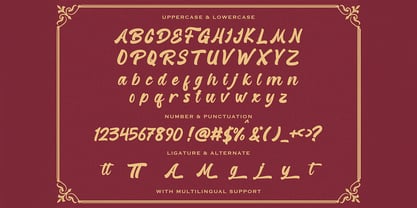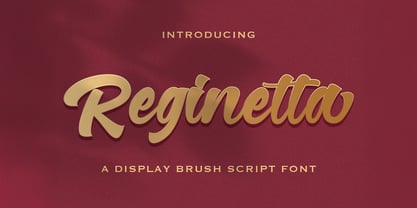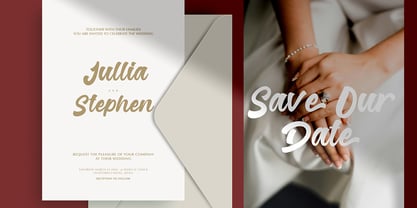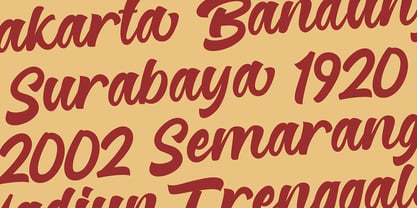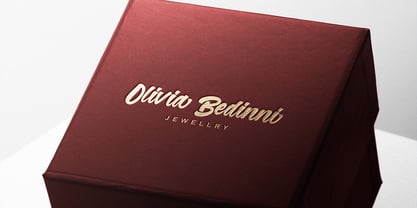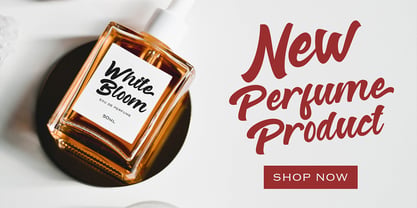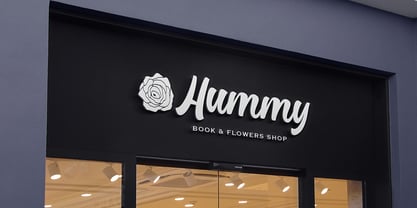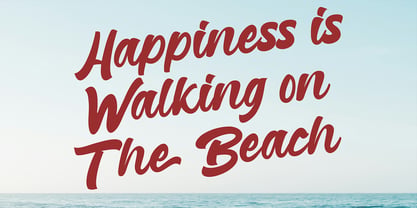
The Reginetta Font Family was designed by Virgiawan Listanto and published by Stringlabs Creative Studio. Reginetta contains 1 styles. More about this family
Introducing Reginetta - Bold Script Font Reginetta is a bold script font designed with smooth brush strokes and elegant flowing curves. Its strong handwritten style creates a beautiful balance between boldness and sophistication, making it perfect for eye-catching typography. This font works great for logos, branding, posters, headlines, packaging, invitations, social media graphics, and creative typography projects. Reginetta delivers a stylish and expressive appearance that adds warmth and personality to any design. With its graceful brush script character and bold presence, Reginetta helps create visually striking designs while maintaining a smooth and elegant look. Hope you Like it. Thanks.
Designers: Virgiawan Listanto
Foundry: Stringlabs Creative Studio